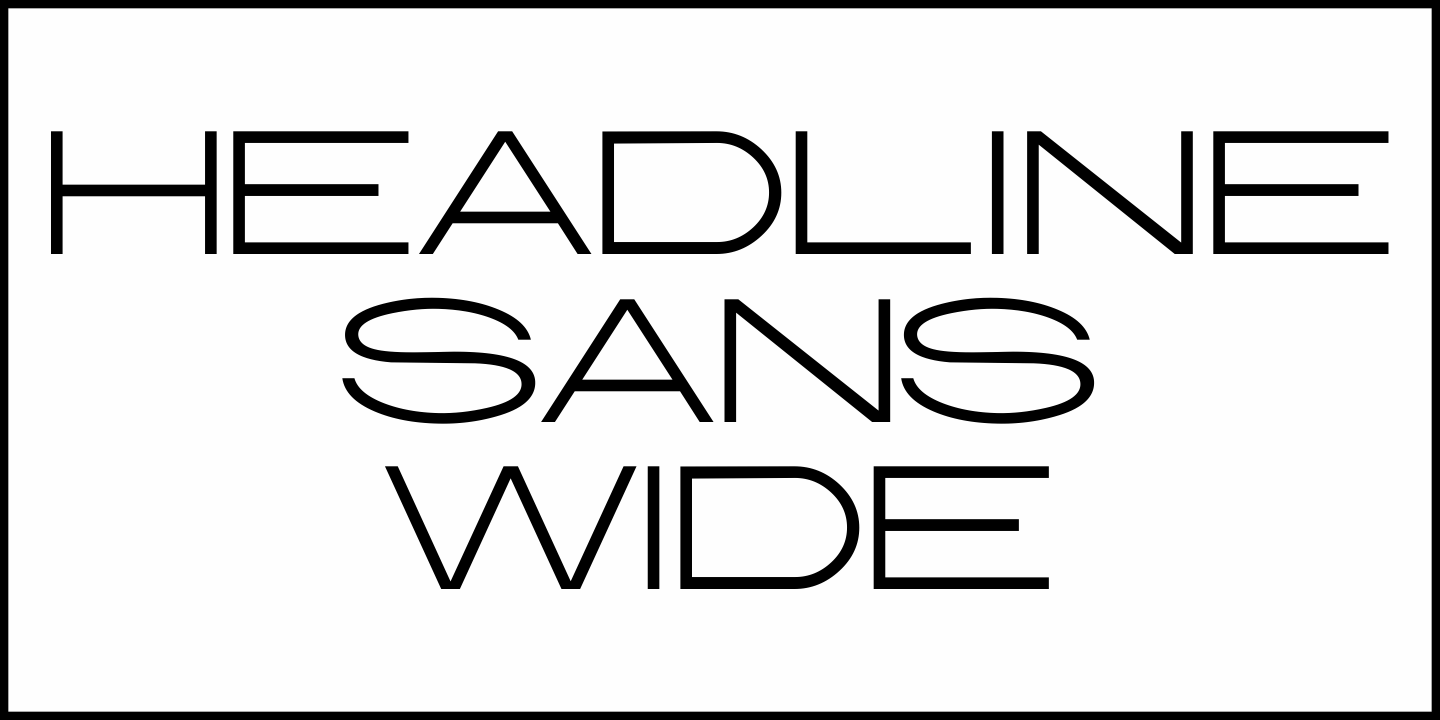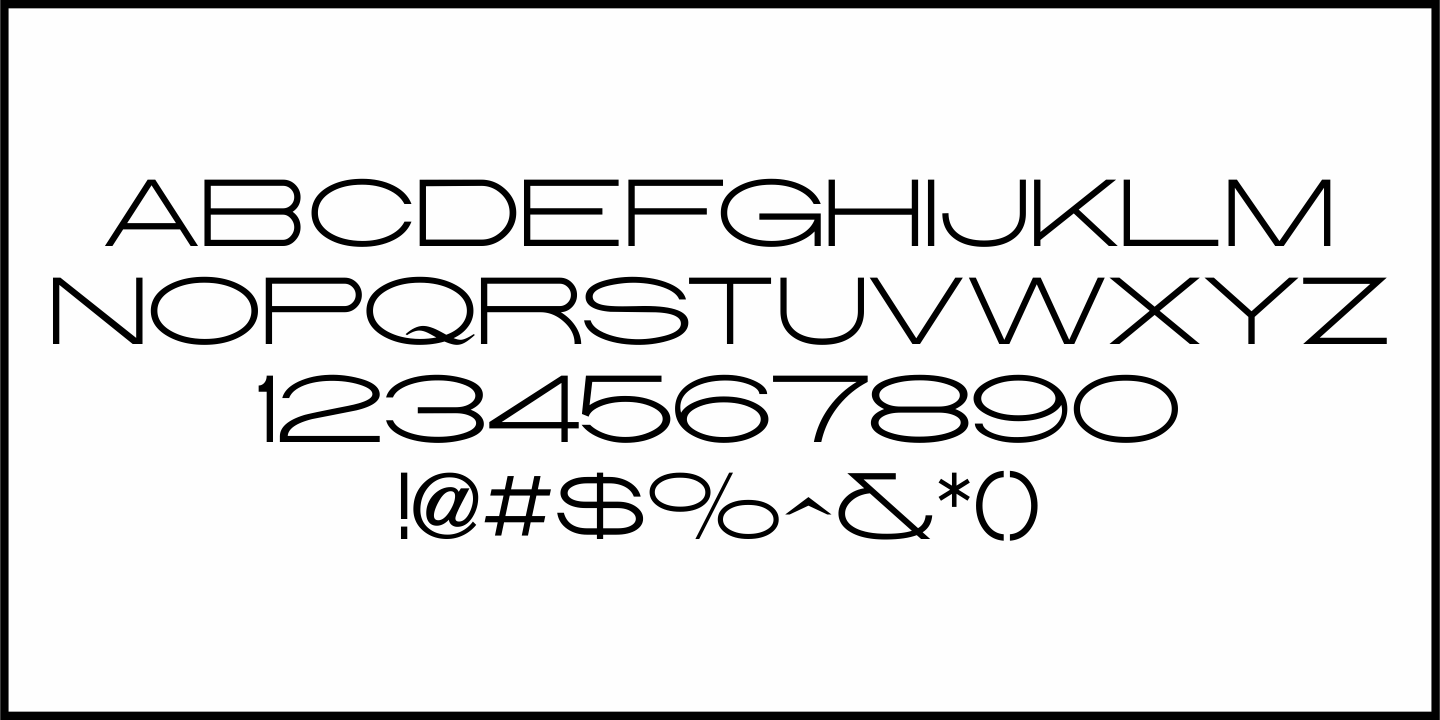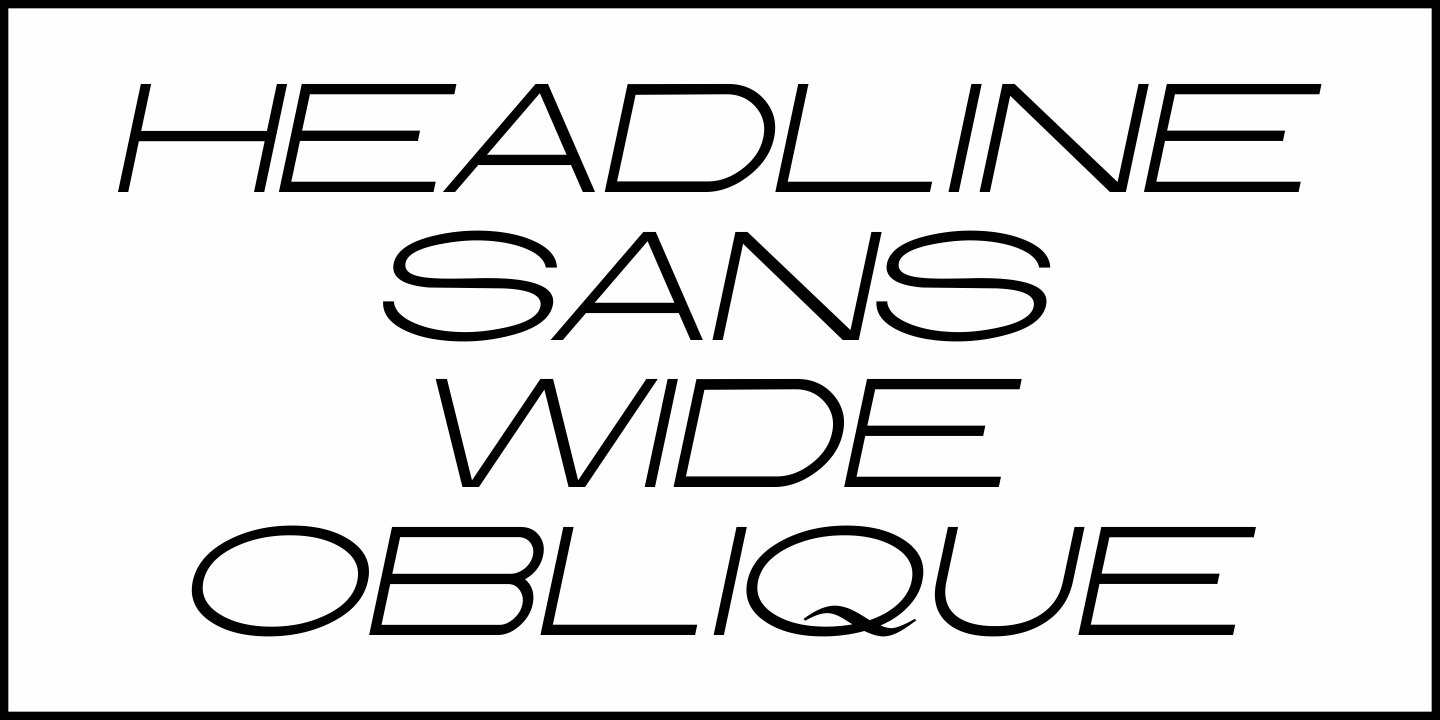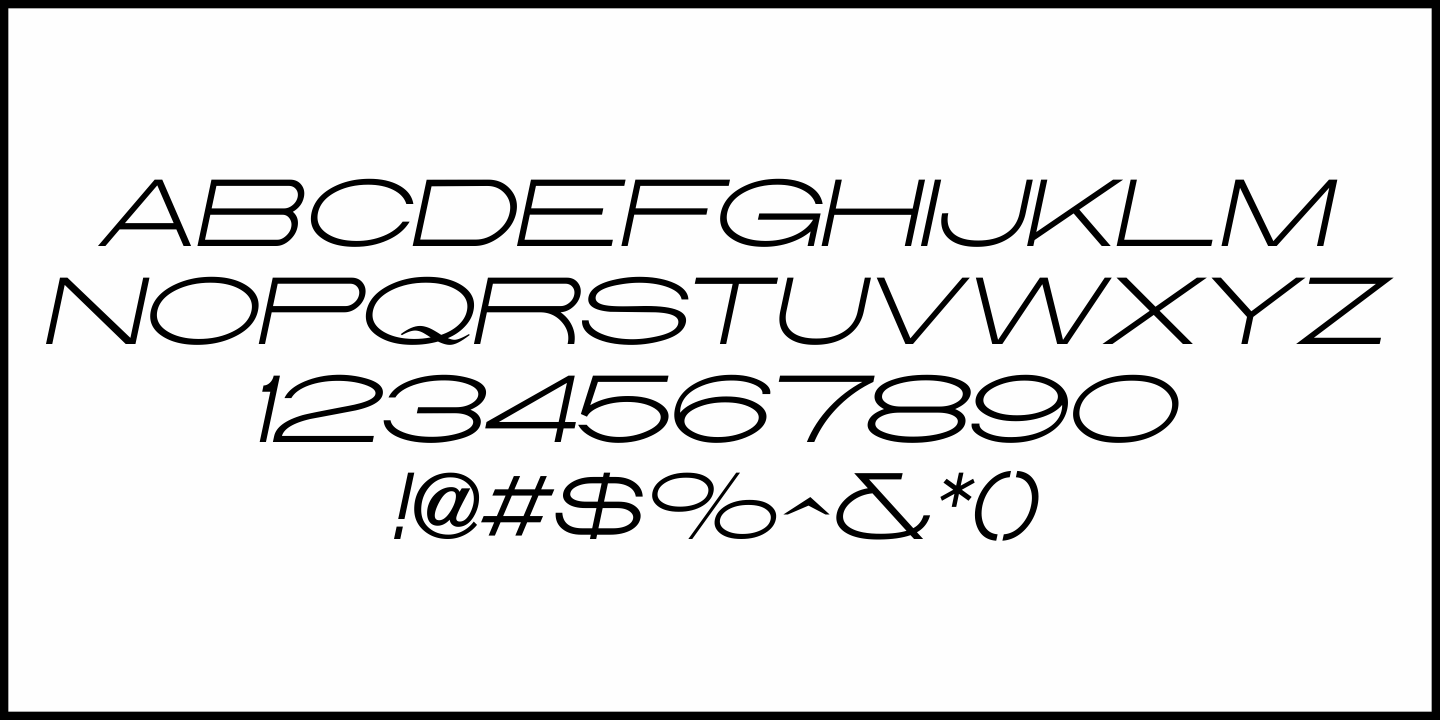
Headline Sans Wide
A page from the Barnhart Bros. & Spindler 1907 type specimen book displayed a thin sans serif face called Wide Lining Gothic.
This is now available as Headline Sans Wide JNL, in both regular and oblique versions.
Headline Sans Wide JNL Regular by Jeff Levine Fonts